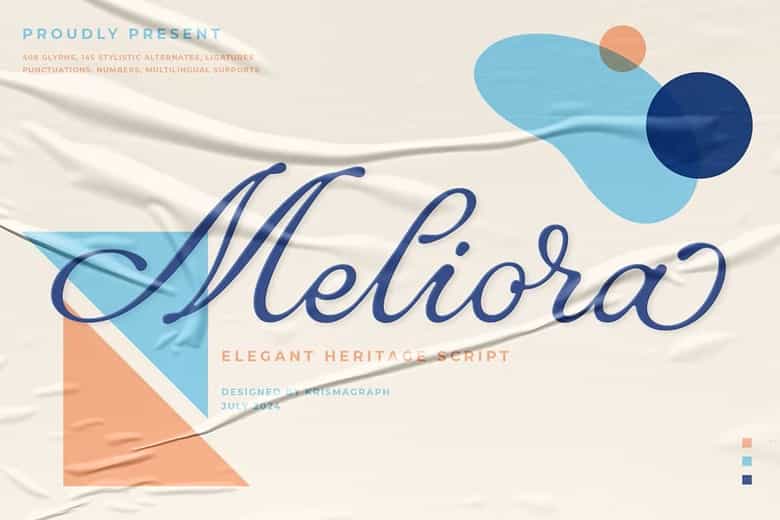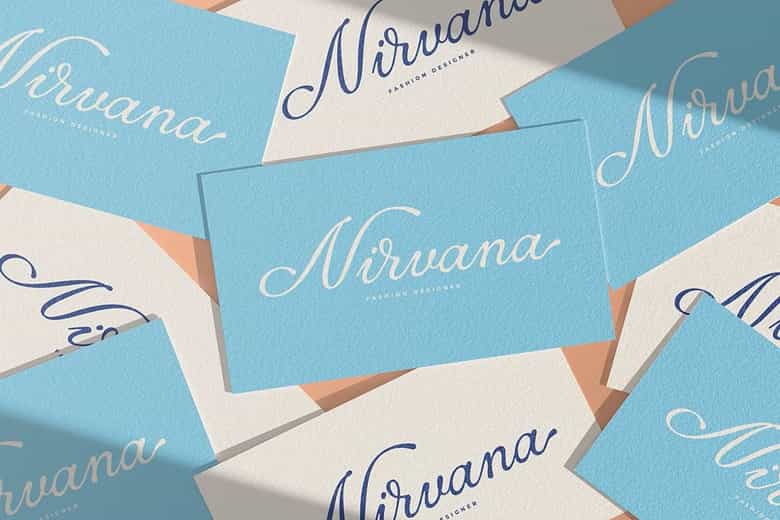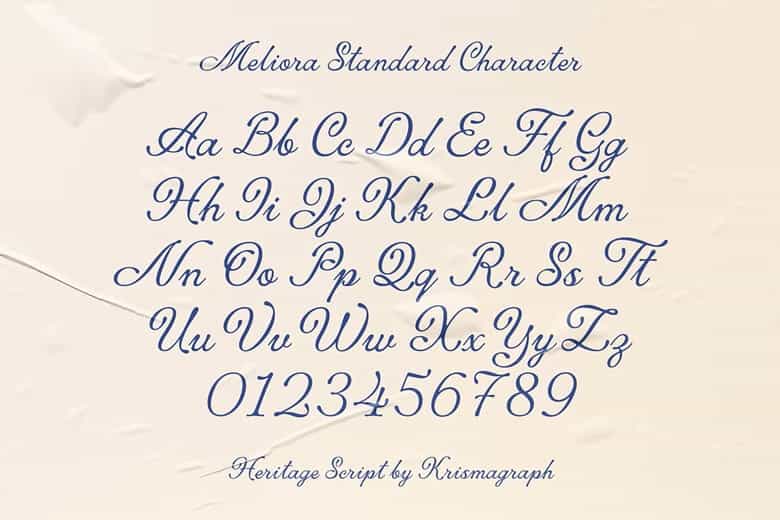
Meliora is a classic contemporary calligraphy script font that has been styled after the beauty in classical writings e.g. hand writings in classical literature. It contains 145 stylistic alternates, ligatures, and wide multi-language coverage, which increases its aesthetic beauty and makes your projects truly eye-pleasing.